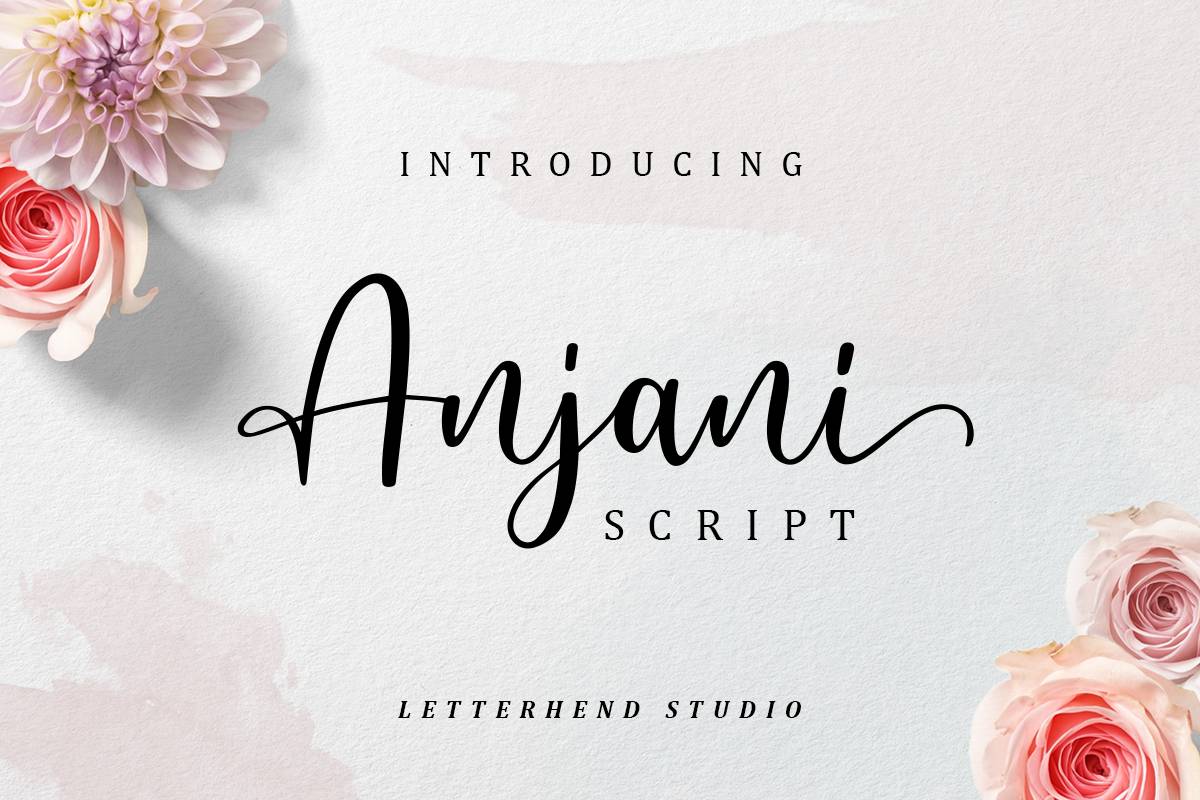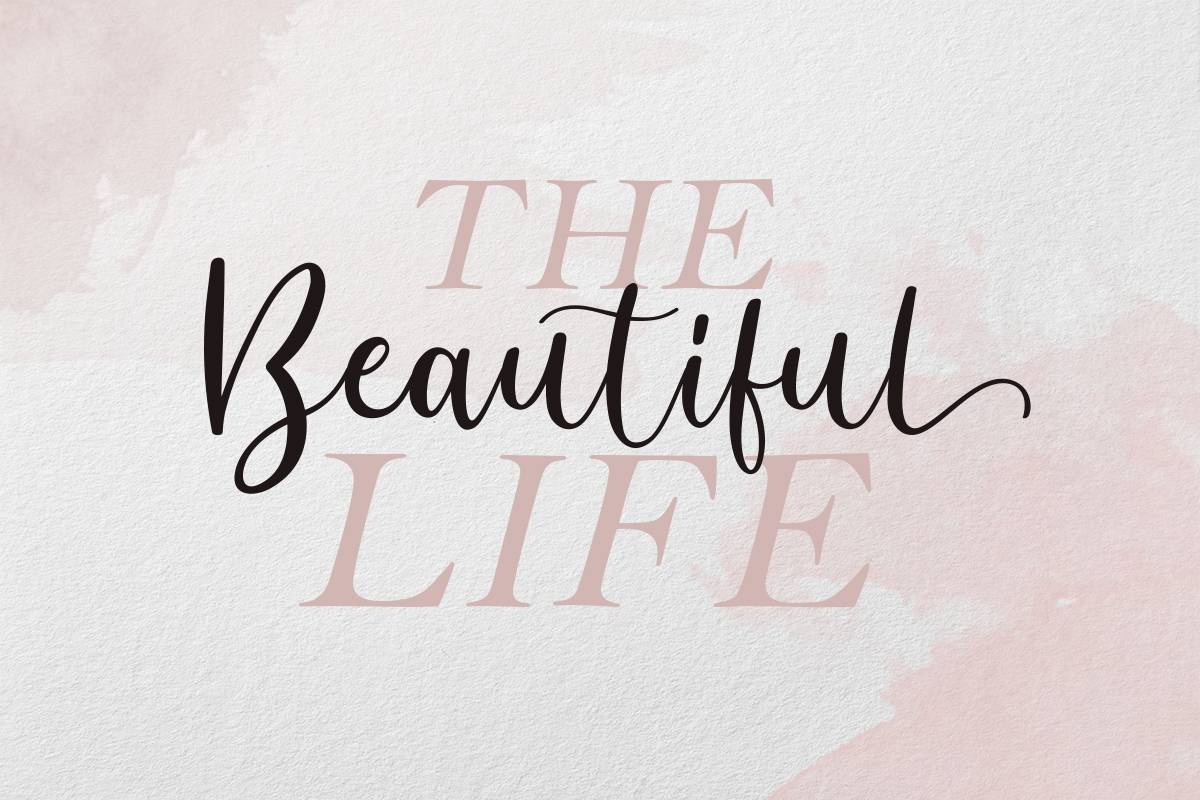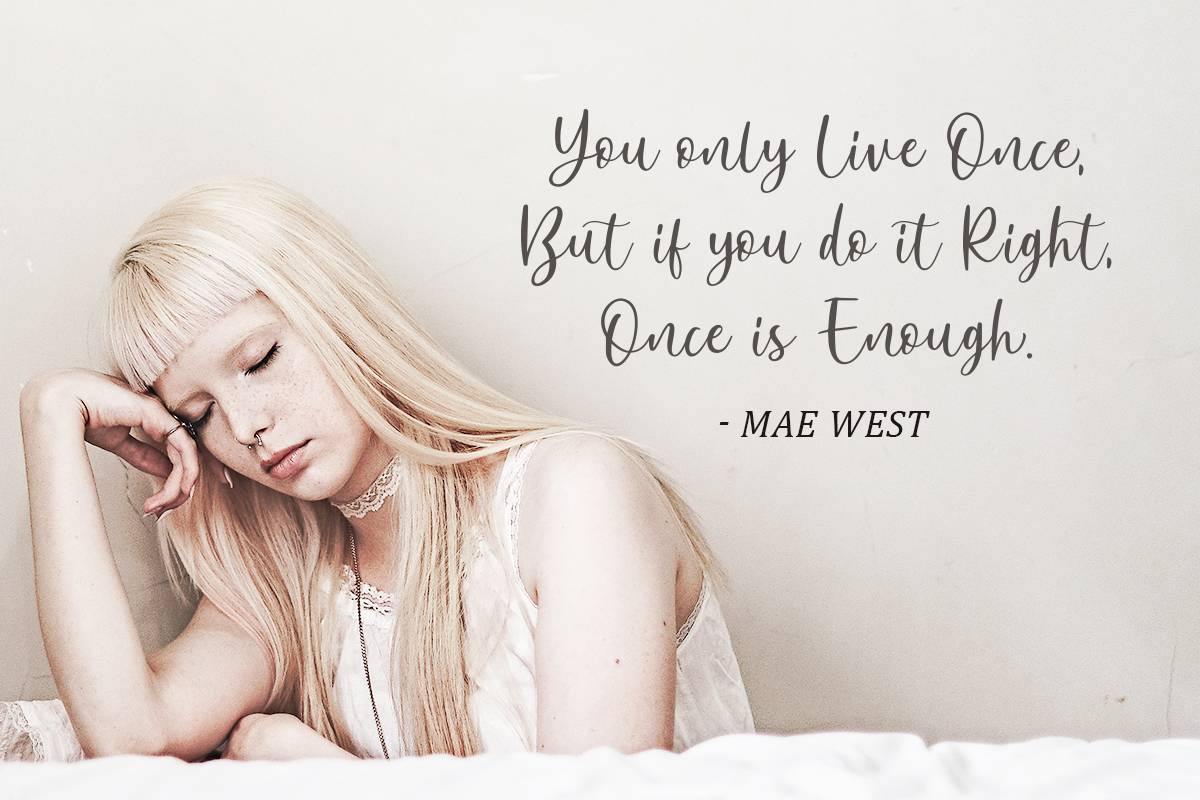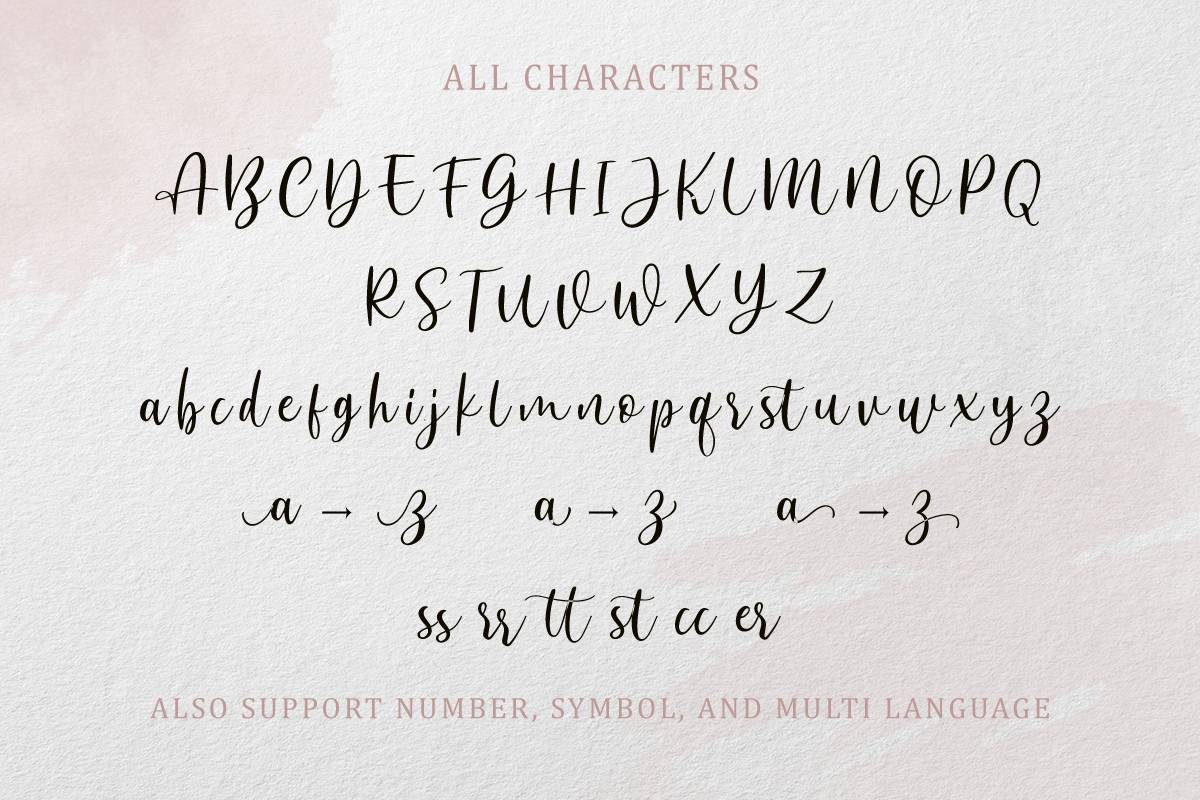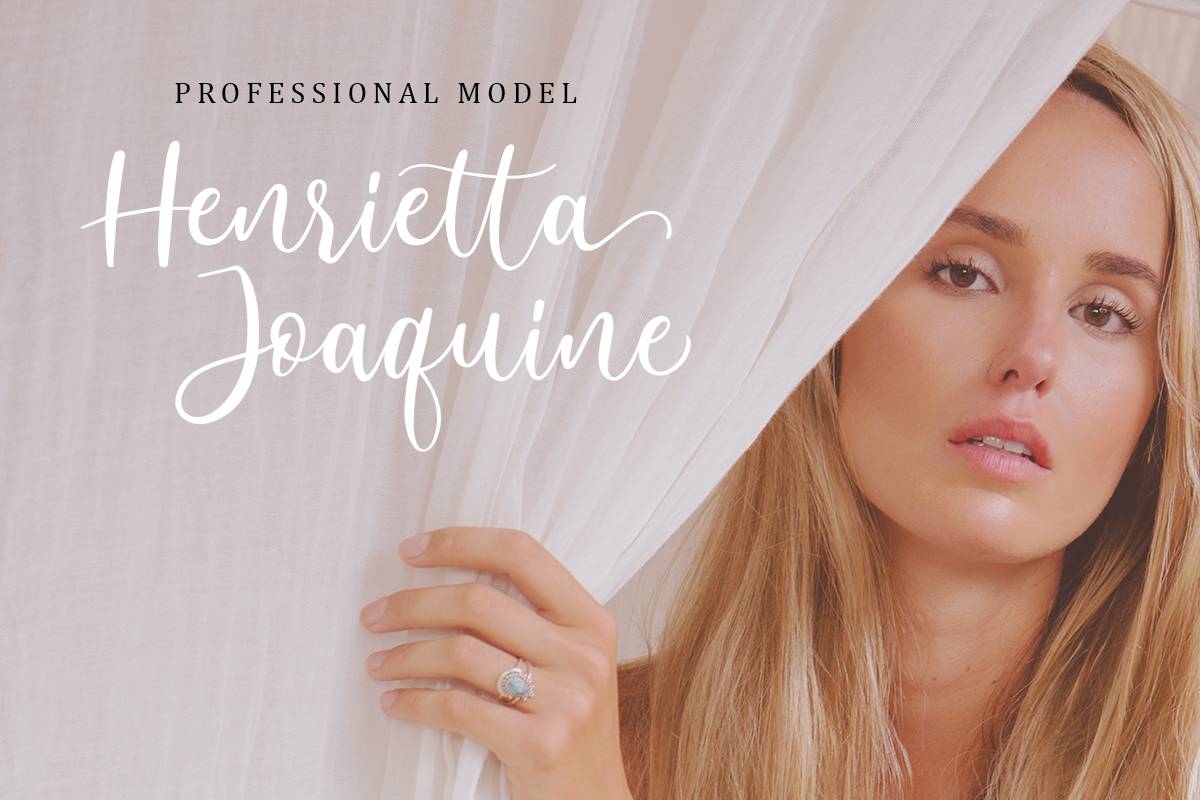
Anjani Script is an elegant, hand-lettered script font with a delicate and flowing style. It features slender, slightly varied stroke widths and playful, looping letterforms that give it a personal, artisanal feel, making it perfect for invitations, branding, and creative projects seeking a charming, feminine touch. This font works beautifully for headlines, logos, and designs that want to convey warmth and sophistication with a casual, handwritten flair.
Anjani Font
About Anjani Font
| Font family | Anjani Font |